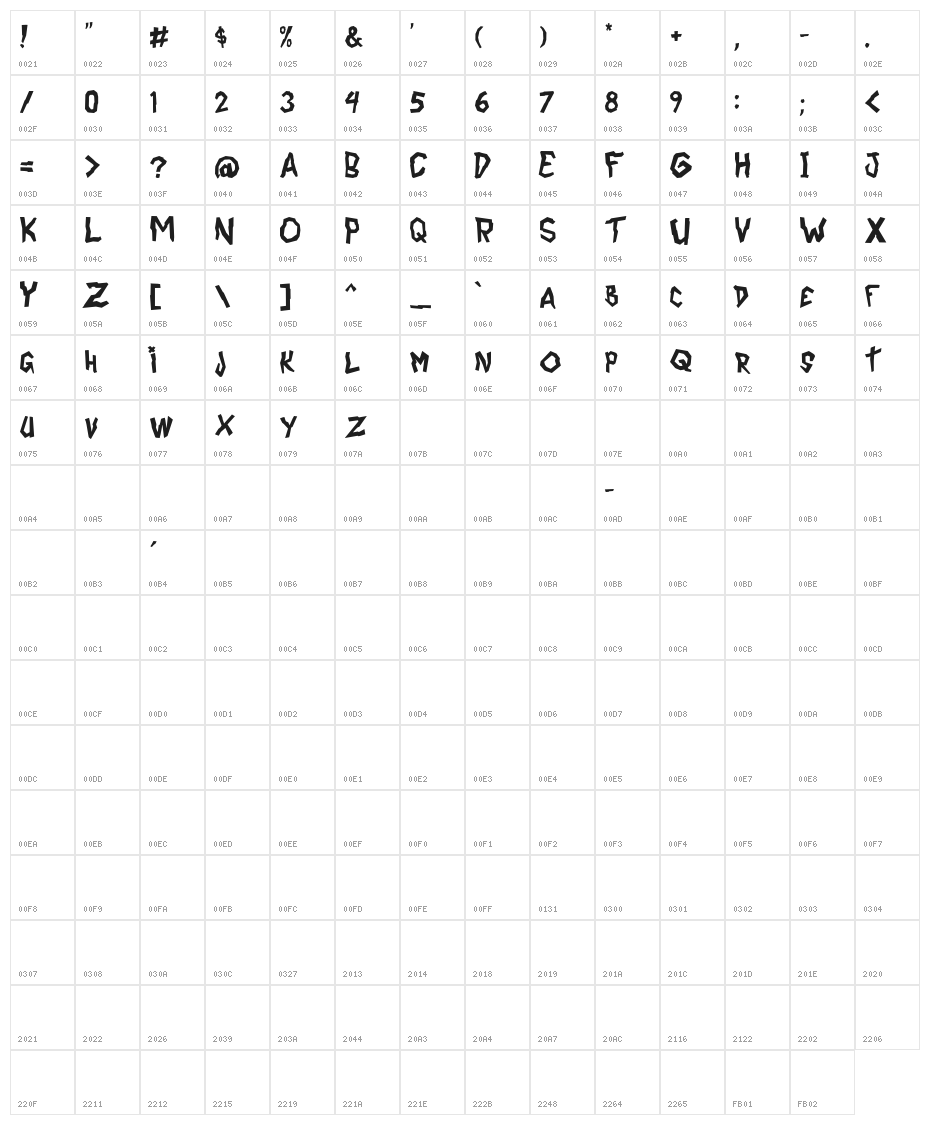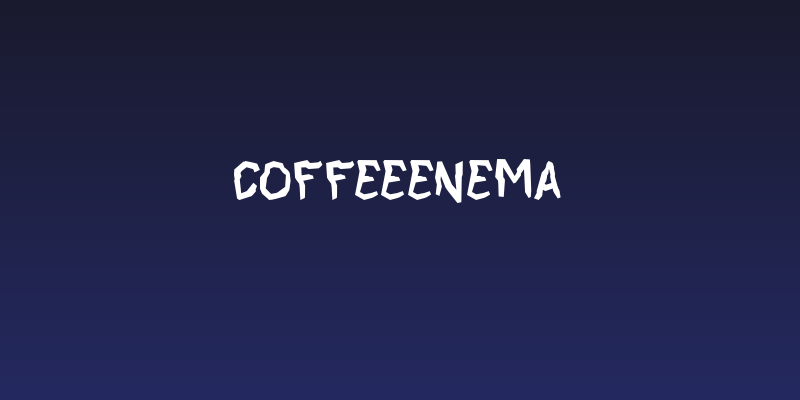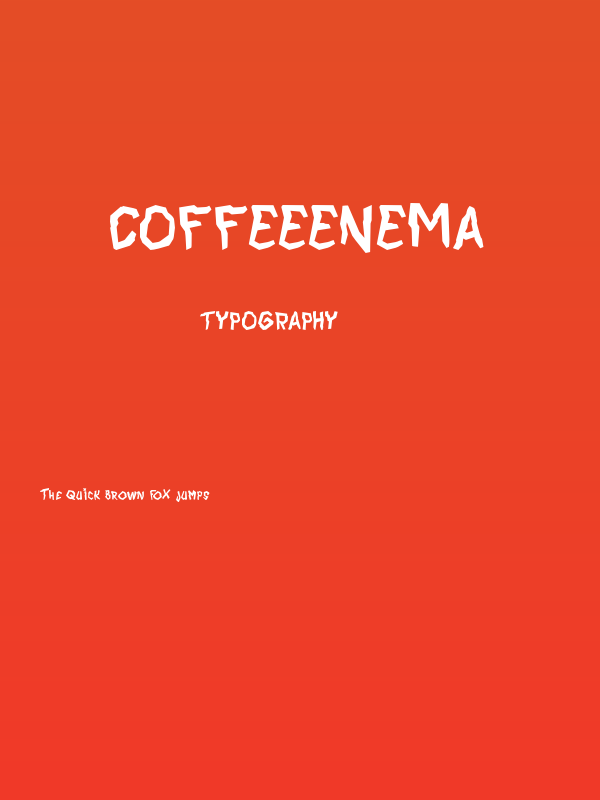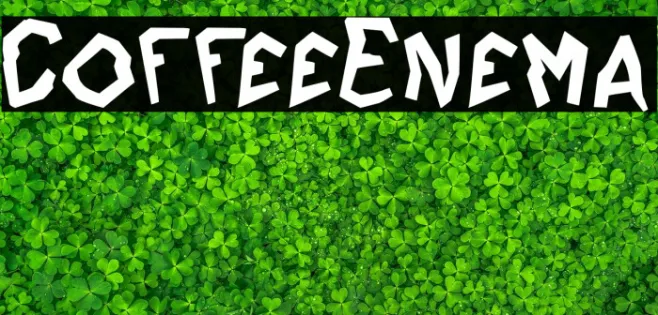
CoffeeEnema Font
CoffeeEnema Description
This font exhibits a bold, jagged style with an edgy and irregular appearance. The characters are sharply angular, giving off a rebellious and dynamic vibe. Each letter is uniquely crafted with varying angles and thicknesses, creating a sense of movement and energy. The font's rough, hand-drawn aesthetic makes it stand out, suitable for projects that require a bold statement. The numbers and special characters follow the same design principles, maintaining consistency throughout the set.
| Overall Style | Modern, Edgy |
| Proposed Projects | Ideal for music album covers, skateboarding brands, graffiti art, and edgy poster designs. |